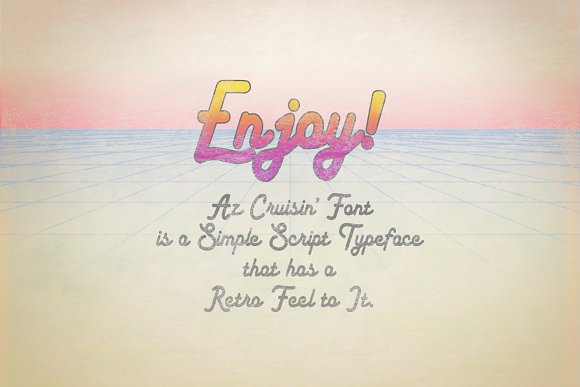
Discover the Ultimate Summer Vibes with AZ Cruisin Font
Ah, the quest for the perfect font! I still remember the summer afternoon I spent struggling to find the right font for a client’s vintage-inspired t-shirt design project. The design needed a font that screamed summer fun, had a dash of retro charm, and could easily be read on both digital and printed formats. That’s when I stumbled upon the AZ Cruisin font, and let me tell you, it was love at first sight! ✨
An Honest Review of AZ Cruisin Font
- ✅ Retro-Chic Aesthetic: The AZ Cruisin font embodies the essence of 70’s vintage posters, perfect for designs craving that nostalgic summer feel.
- ✅ Versatility: It works beautifully for both digital and printed work, making it a go-to for various projects.
- ✅ Ease of Use: The font is straightforward to work with, even for beginners.
While the AZ Cruisin font is fantastic, there are a few minor things to consider:
- ⚠️ Letter Spacing: For certain words or phrases, you might need to adjust the letter spacing to achieve the best look.
- 🤔 Extensive OpenType Features: While it does offer some great features, it might not have the extensive OpenType capabilities that some other fonts offer.
The Designer Inspiration Behind AZ Cruisin Font
The AZ Cruisin font was inspired by the iconic travel posters of the 1970s. Imagine sun-kissed roads, beachside billboards, and a laid-back vibe that invites you to take a ride. The designer aimed to capture the essence of summer freedom and adventure in a font that’s both fun and functional.
Q: Is AZ Cruisin suitable for body text?
A: While AZ Cruisin is stunning for headlines and short texts, it might not be the best choice for extensive body text due to its decorative nature.
Q: Does AZ Cruisin support OpenType features?
A: Yes, AZ Cruisin offers some OpenType features, including glyphs and stylistic alternates, which can enhance your design.